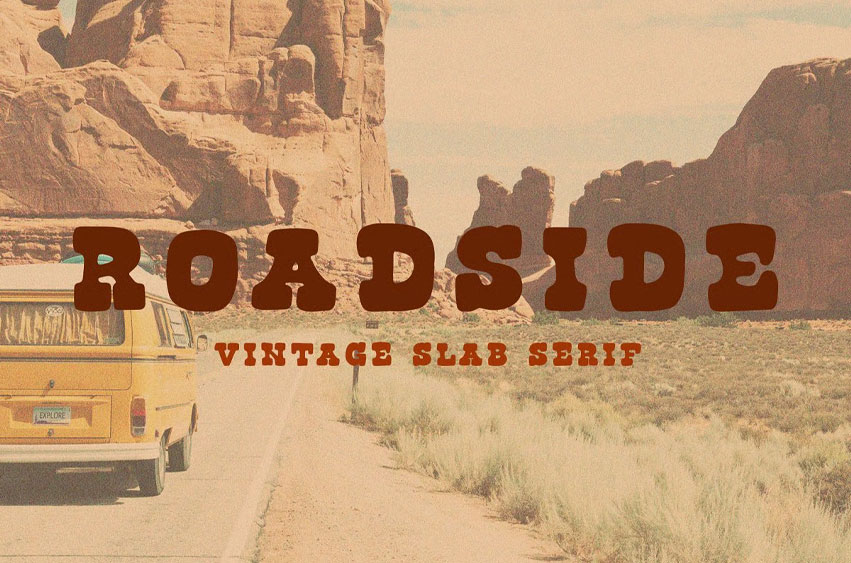
Roadside Font is a beautiful and nostalgic vintage font whose style was born in the time of free love and van adventures. With roots in surf culture and music festivals, Roadside is a complementary font to a variety of designs.